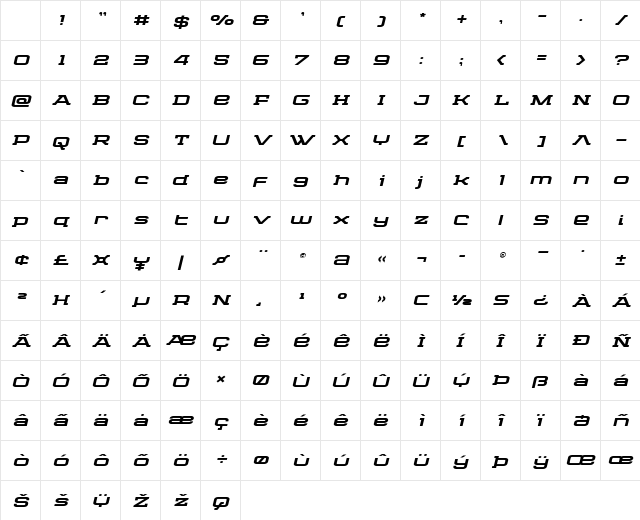
Complete Cydonia Century Expanded Italic glyph index. Displaying only characters natively supported by Cydonia Century Expanded Italic font.
Cydonia Century Expanded Italic is a composed and adaptable typeface that performs quietly and consistently across a wide range of design contexts. The slanted form adds forward momentum and visual energy.